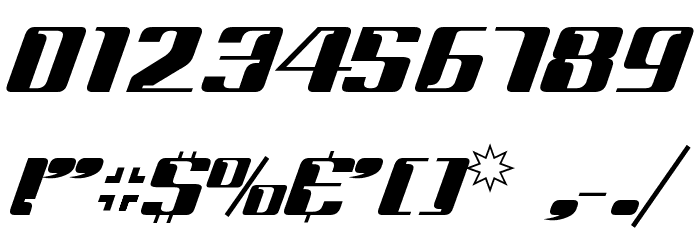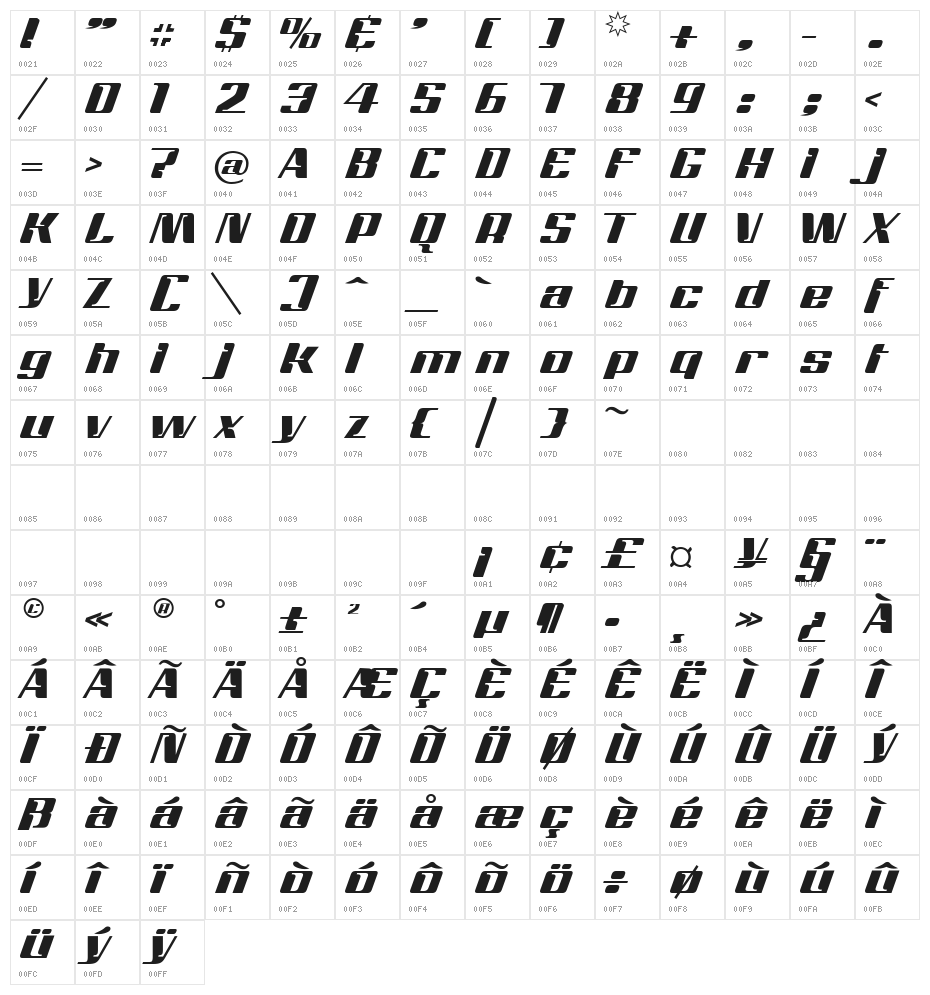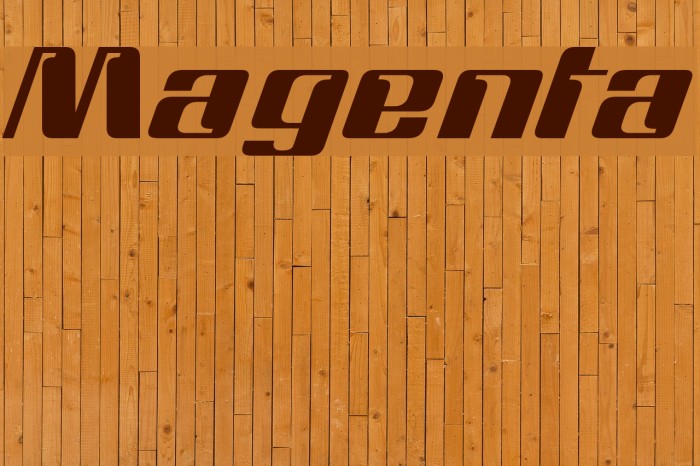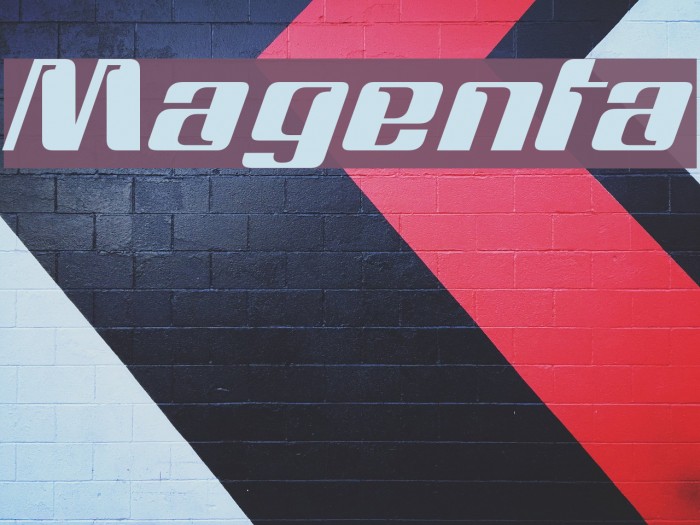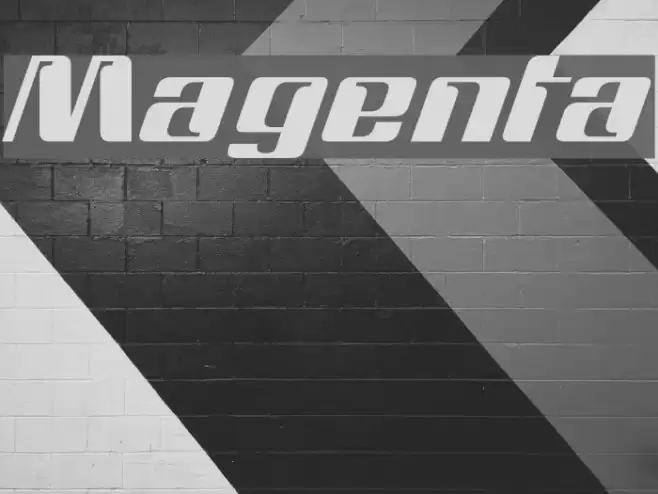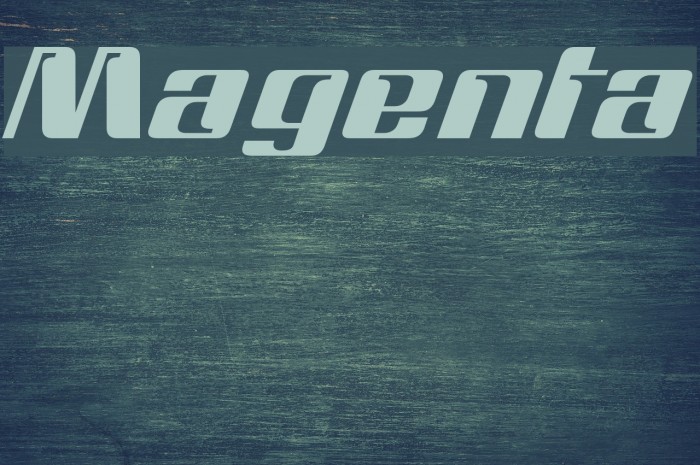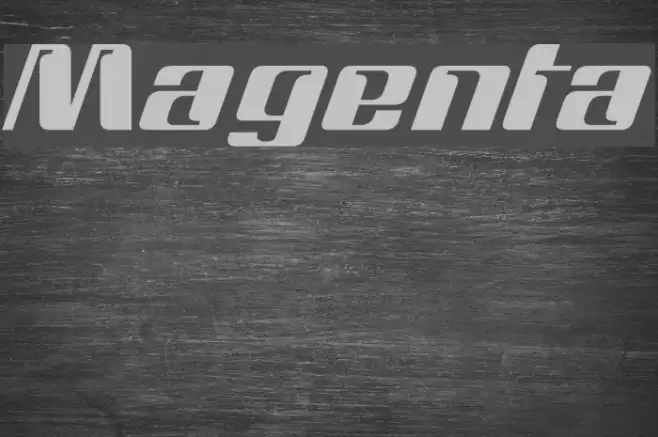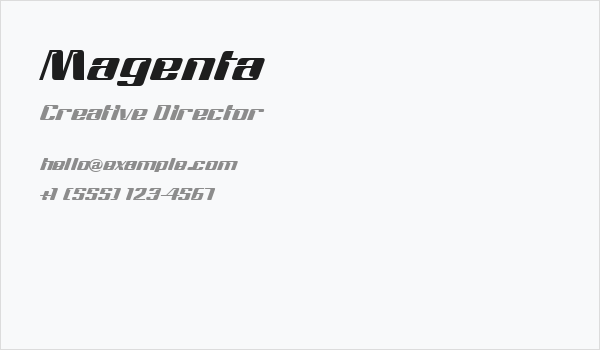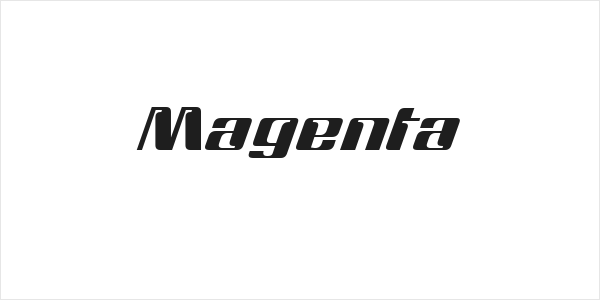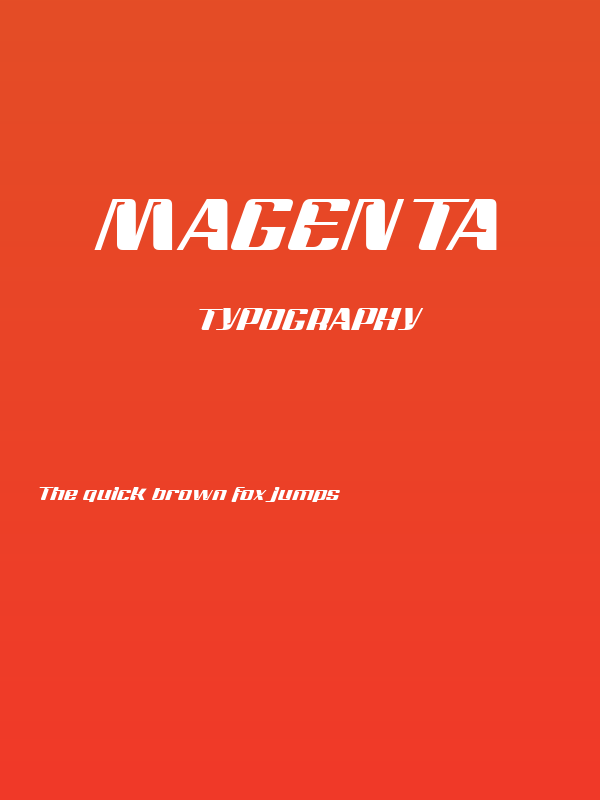
Magenta Font
Magenta Description
This font features a bold and dynamic design with a strong slant, giving it a sense of movement and energy. The characters are wide and have a distinct geometric style, with sharp angles and clean lines. The uppercase and lowercase letters maintain a consistent style, while the numerals and special characters complement the overall aesthetic. The font's boldness and unique style make it stand out, suitable for projects that require a modern and impactful look.
| Proposed Projects | Ideal for sports branding, dynamic posters, modern advertisements, and eye-catching headlines. |